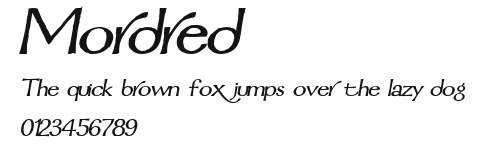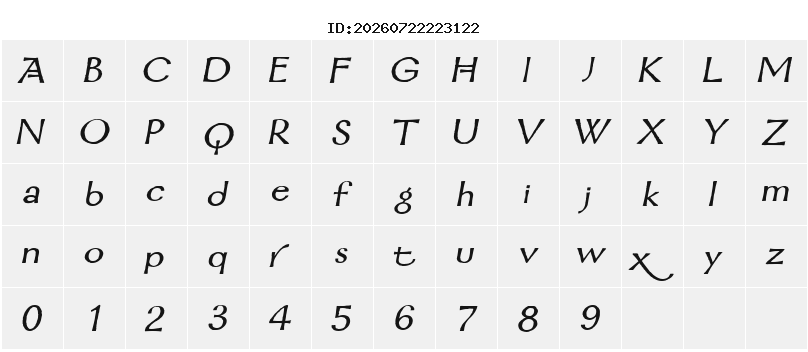
• Font Name: Mordred
• Font Style: Demi Bold Italic
• Font ID: FontMonger:Mordred Demi Bold Italic
• Full Font Name: Mordred Demi Bold Italic
• PostScript Name: MordredDemiBoldItalic
About Mordred.ttf
Mordred.ttf is a modern, elegant sans-serif font designed for ultimate readability and visual harmony. Perfect for branding, headlines, web design, and print materials.